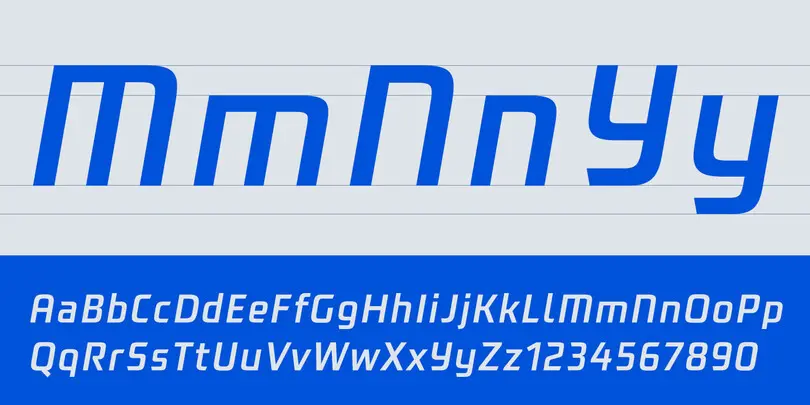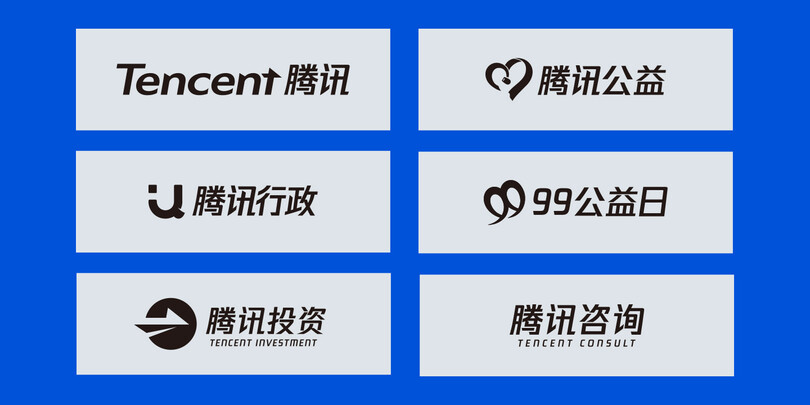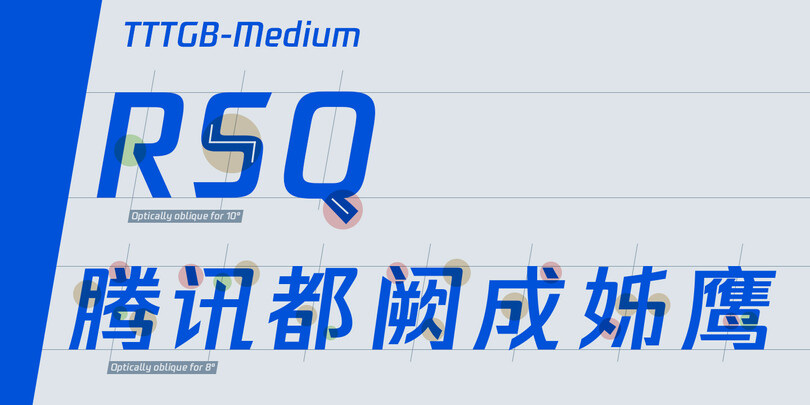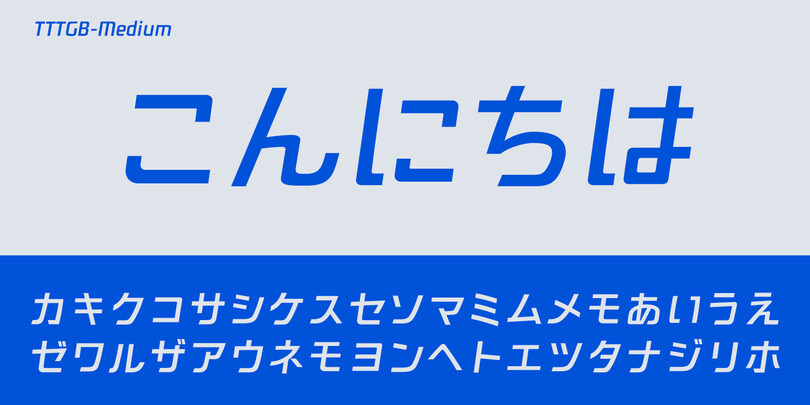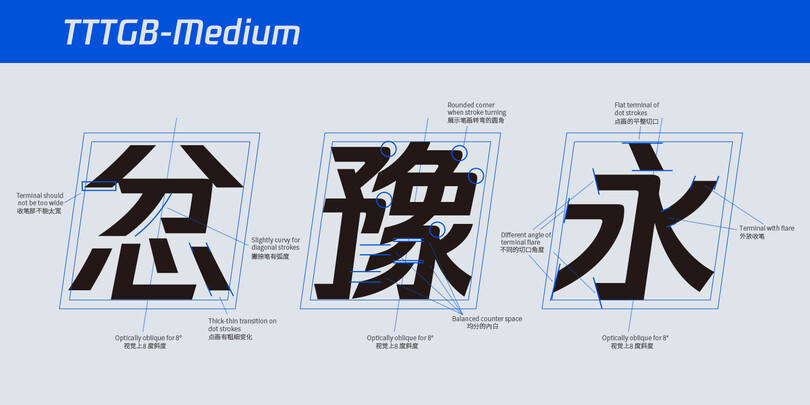
Tencent expands global presence with a new brand identity and typeface.
Monotype developed a global typeface family for Tencent, a leading provider of Internet-based services in China. The forward-thinking design embodies Tencent’s commitment to technology and the future. Monotype Type Designer Julius Hui led the creation of the slanting, futuristic typeface which focused on creating a perfect harmony between Chinese, Japanese and Latin characters— allowing Tencent to deliver a consistent, recognizable brand voice, worldwide.
If you’re using a messaging app in China, chances are it’s owned by Tencent – a leading provider of Internet value added services in China that owns WeChat, as well as a whole host of social media platforms, entertainment subsidiaries and payment services.
Tencent’s net worth is currently more than $200 billion, and it has been named the world’s tenth most valuable public company by Wells Fargo. Although best known in its home country, Tencent has plans that go far beyond China, hoping to “preside over the global tech revolution of the future,” as its chairman and CEO Ma Huateng recently told The Economist.
With such lofty goals and an increasing amount of global brand awareness, the time had come for Tencent to expand its corporate typographic voice in line with its ambitions. The company approached Monotype to design a bespoke typeface, based on its existing logo, that could convey its vision of “innovation, responsibility and enablement”. It needed to communicate not just with the brand’s Chinese market, but also with its growing base of users around the world.
“The commission of this custom typeface is timed with the company’s 19th anniversary and represents Tencent’s willingness to invest in their image and create a typeface that is harmonious across geographies and languages,” says type designer Julius Hui, who led the project from Monotype’s Shanghai studio. “Custom type is the voice of a company being visualized,” he adds. “It helps project a desired brand image to an audience with precision.”
“We live in a world of global technology, and more people outside of China are using Tencent products to communicate,” adds type designer Juan Villanueva, who designed the Latin fonts. “With many different languages in use, it’s nice that they can all be united in tone and style effectively through type.”
Hui worked closely with Tencent on an updated logotype, giving the letters a more contemporary feel that would convey the brand’s dedication to technology and innovation. A “cutting edge” is represented literally on the entry and exit strokes throughout the typeface. The design also slants forward at an 8-10° angle, leaning into the future.
The type’s slanting style posed a particular challenge for Chinese characters – whose structure can become loose and easy-to-collapse when not drawn upright. Hui and his design team experimented with several solutions, trying different slopes, different degrees, and even creating a slanted box in which they could draw slanted Chinese characters.
“For the conflict between Chinese characters and the slanted style, we applied many optical corrections to each character to make it comfortable for our eyes, and natural,” says Hu
Chinese is traditionally drawn completely upright. To reflect Tencent’s dedication to the future, Julius decided to create a slightly italic Chinese design that slanted forward. Optical corrections were put in place to ensure legibility in this new forward-thinking design.
With Tencent’s global mission in mind, the company also needed a Latin counterpart that would complement and work alongside the Chinese. Monotype designer Juan Villanueva oversaw the development. Villanueva started with a broad-edge pen, rewriting Chinese characters to get a better understanding of their structure. Latin and Chinese had to work together in a “true partnership”, despite operating as two very different writing systems – Chinese ideographs fit into a box, while Latin has very different constraints.
“I certainly focused on the aesthetic features, but what was really important to me was understanding the internal logic behind the Chinese design – like how the stroke direction (ductus) determines the angle of the entry and exit strokes, and how a sudden change in direction determines a round vs sharp corner,” said Villanueva.
The Chinese and Latin fonts share similar entry and exit strokes. Notice the intentional “cutting edge”, a reference to Tencent’s products and brand values.
Villanueva designed a low-contrast and oblique sans serif that blends the warmth of early geometric sans, such as Paul Renner’s original Futura drawings, with the rational forms of more recent industrial sans such as Sebastian Lester’s Neo Tech. Its sharp cuts are intended to match both the spirit and appearance of the Chinese design.
“Both styles are rid of ornaments and share a dynamic angle – their clean aesthetic and sturdy proportions feel modern, with a nod to history and a lean towards the future,” he adds. “I was looking for a combination of shapes that were bold, graphic, rooted in history yet contemporary.”
“A typeface is an important part of conveying a brand’s voice and promise to its customers,” the company says. “We wanted to ensure that our voice demonstrates how technology is incubating new possibilities for social development and quality of life. This typeface echos our values.”